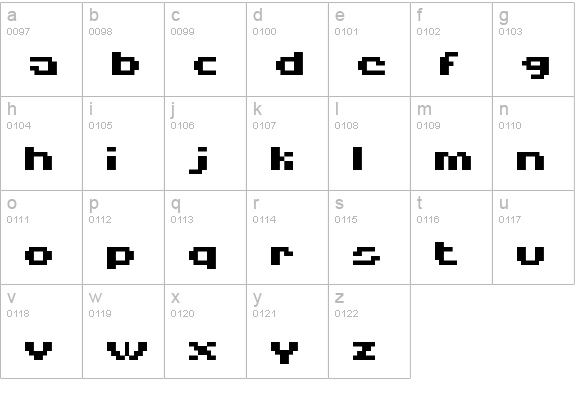
HISKYFLIPPERLOWBOLD Font Details
HISKYFLIPPERLOWBOLD font is a unique and eye-catching typeface that combines boldness with a touch of playfulness. With its quirky design and modern appeal, this font is perfect for making a statement in your projects. What makes HISKYFLIPPERLOWBOLD font even more appealing is that it is available for free download at FontsMarket.com. That's right, you can easily access this stylish font and enhance your designs without any cost. Impress your audience with the bold and dynamic look of HISKYFLIPPERLOWBOLD font, and let your creativity shine through!